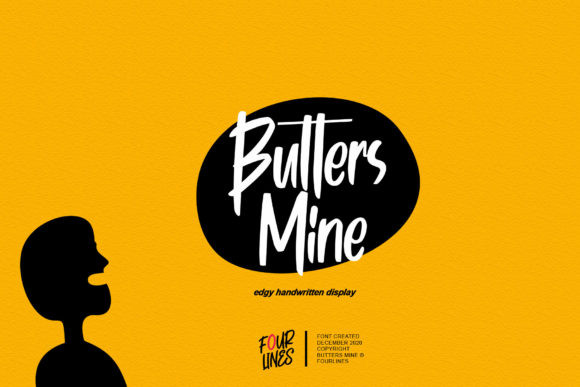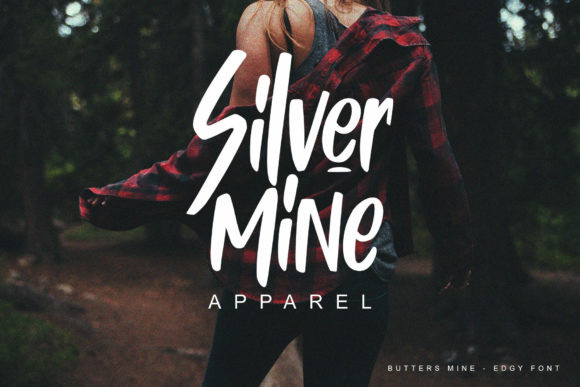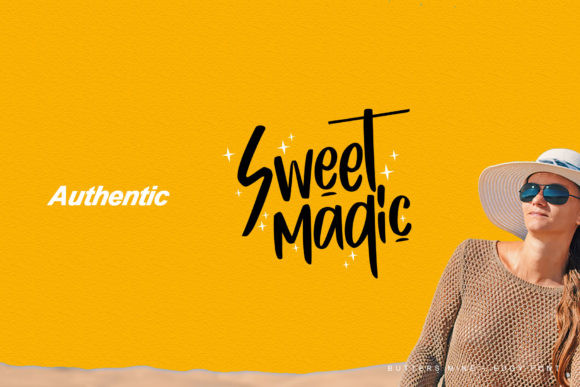
Butters Mine Font
Butters Mine is an edgy and all round display font. It has a tasteful and laid back style, and as a consequence, it matches a wide range of designs.